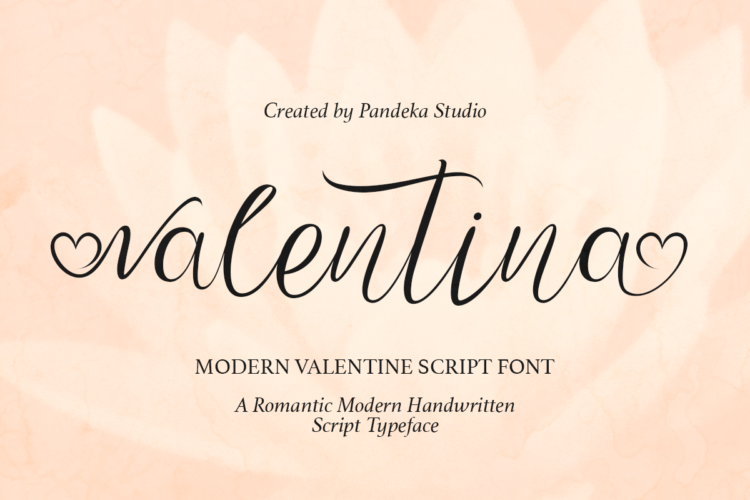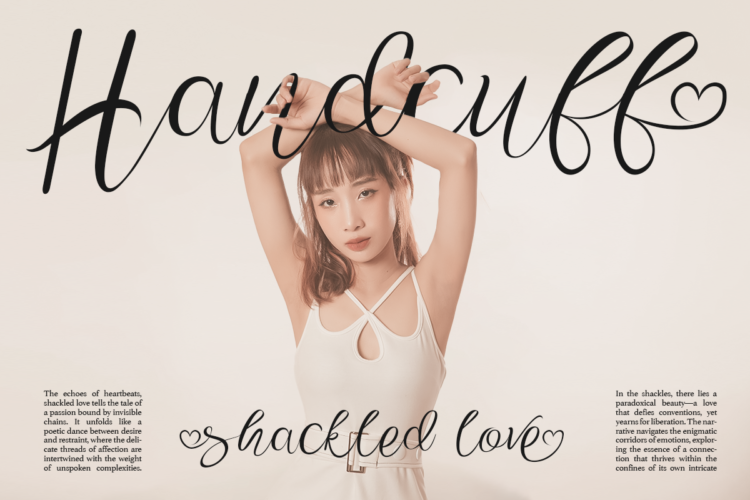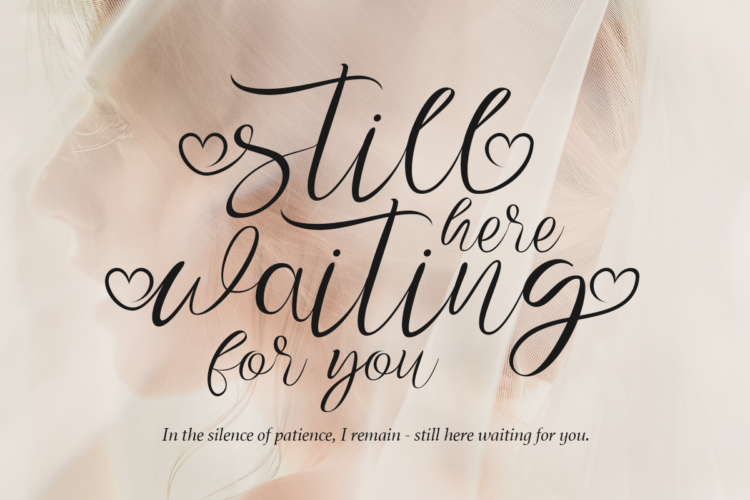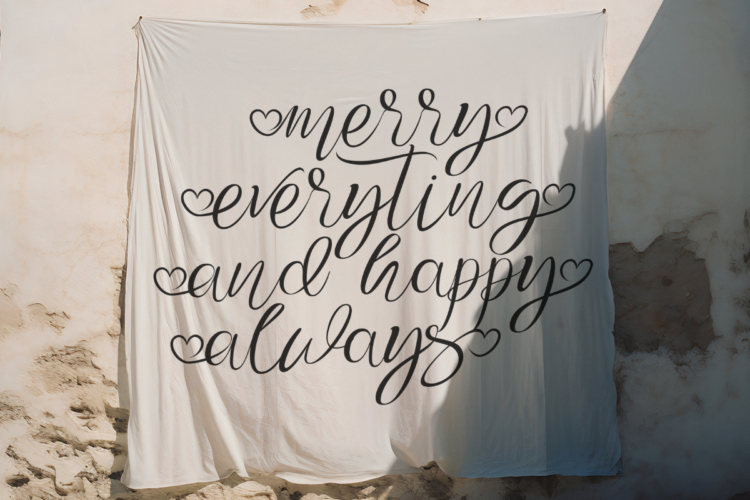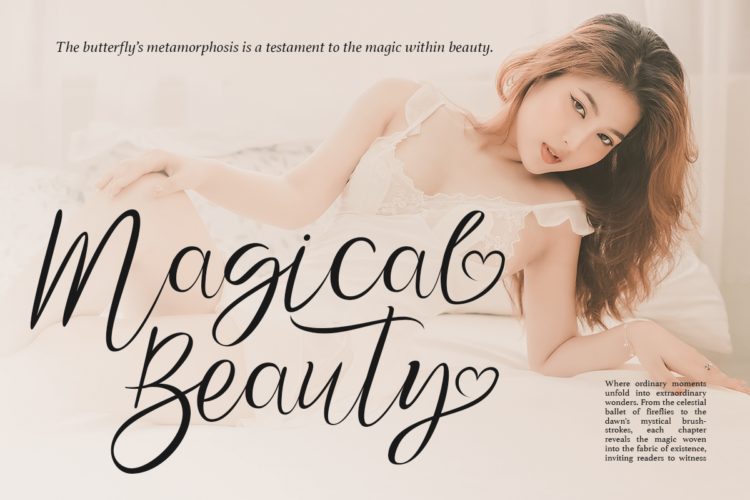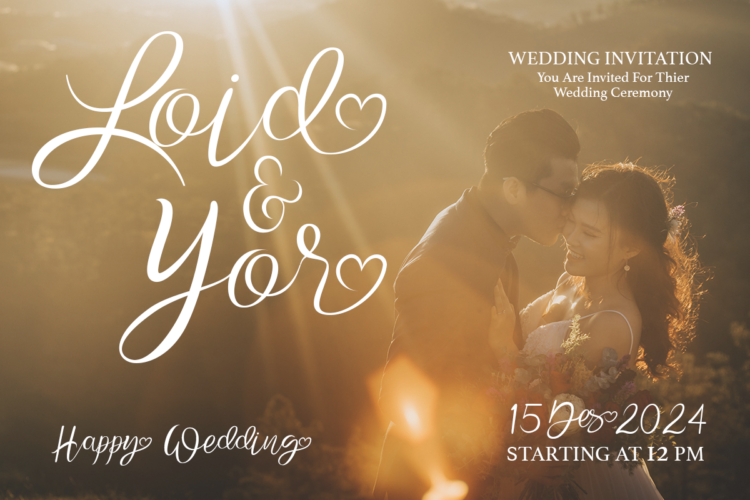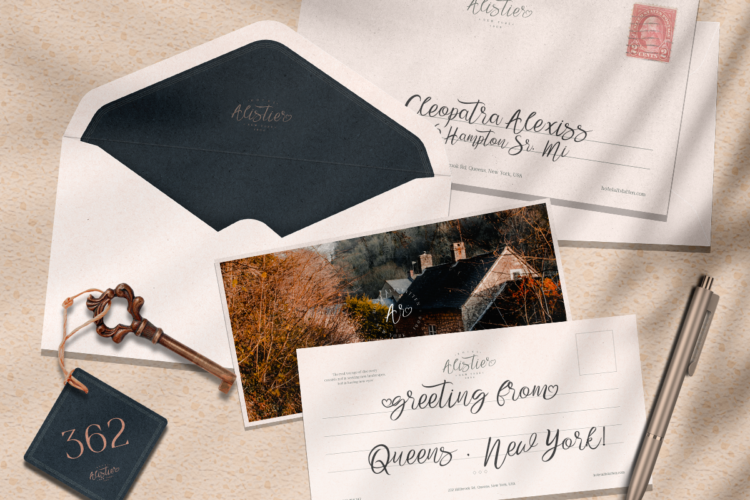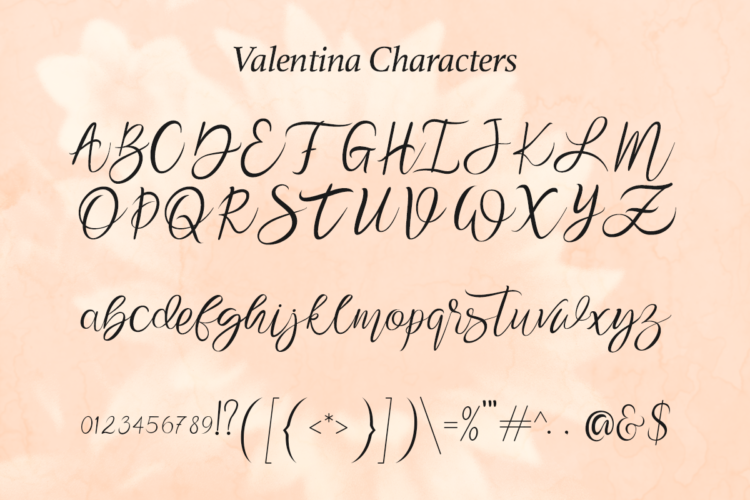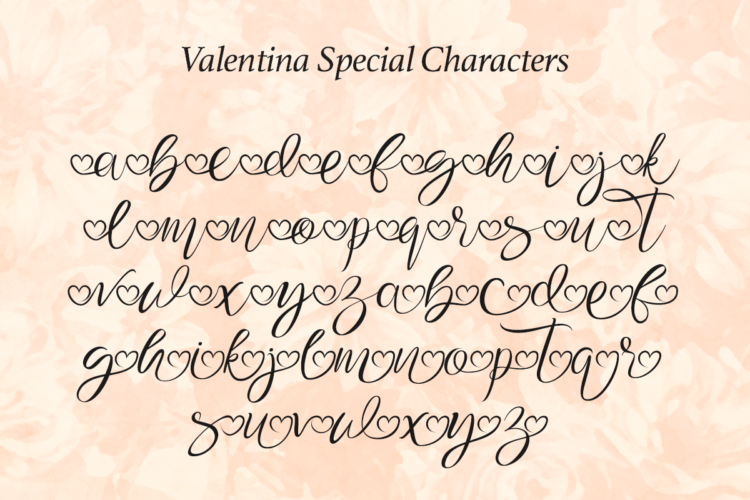
Valentina Regular
Introducing a handwritten calligraphy heart font, Valentina, a lovely and elegant script font designed for signature logos, wedding invitations, custom branding, websites, social media and more! Just in time for Valentine’s Day, it’s perfect for couple names or anything that needs a delicate and romantic touch.
Packed full of alternates – included with Valentina font is a full set of beginning and ending lowercase swashes to give you variety for logo and name designs.
• Many swashes
Valentina – Modern Valentine Script